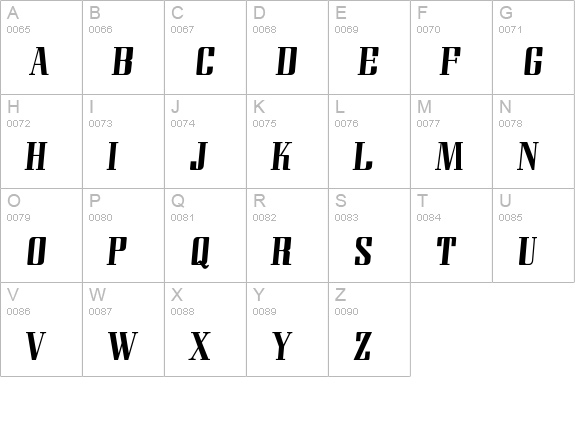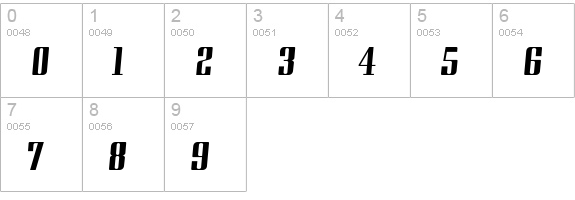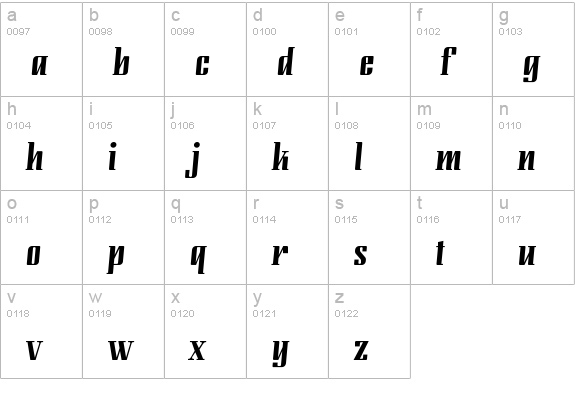
LundaModern Font Details
LundaModern font is a sleek and contemporary typeface that exudes elegance and professionalism. With its clean lines and modern design, LundaModern is perfect for a wide range of design projects, from branding to editorial layouts. The font features a unique mix of geometric shapes and stylish curves, creating a sophisticated look that will add a touch of class to any design. Best of all, LundaModern is available for free download at FontsMarket.com. This means you can easily access this stunning font and use it in your projects without any cost. Don't miss out on this amazing opportunity to enhance your designs with the beautiful LundaModern font. Download it now and elevate your creative work to the next level.